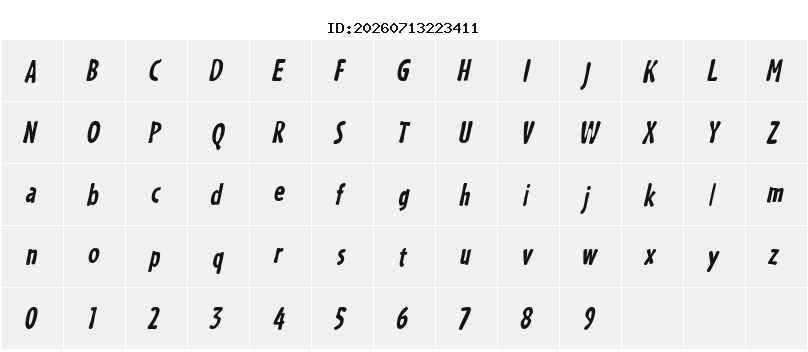
Cafecoco Preview
• Font Name: Cafecoco
• Font Style: BlackItalic
• Font ID: Macromedia Fontographer 4.1.5 Cafecoco BlackItalic
• Full Font Name: Cafecoco BlackItalic
• Version: Macromedia Fontographer 4.1.5 3/10/99
• PostScript Name: CafecocoBlackItalic
• Copyright: ©1998 Sander Kessels Based on Cafetaria ©1993, Tobias Frere‐Jones. Designed by Tobias Frere‐Jones. Produced by The Font Bureau, Inc.
About Cafecoco.ttf
Cafecoco.ttf is a modern, elegant sans-serif font designed for ultimate readability and visual harmony. Perfect for branding, headlines, web design, and print materials.